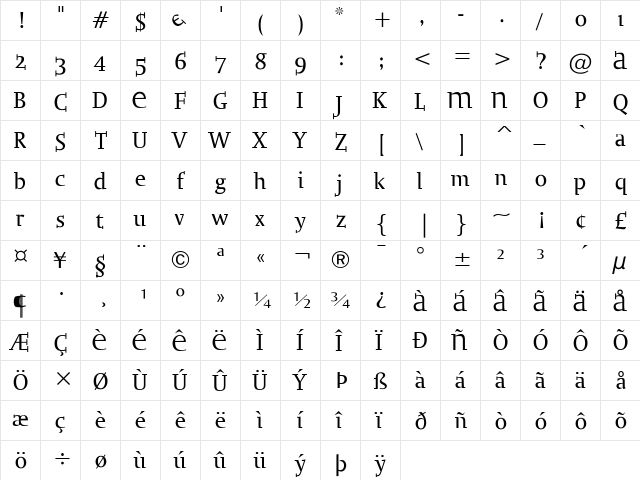
AIBradOgilvy Regular
Design Context for AIBradOgilvy Typeface
AIBradOgilvy takes a measured approach to typography — its balanced proportions and neutral character make it a reliable workhorse for both digital and print work.
Pro Tip: Use AIBradOgilvy in both headline and body roles to test its range before committing to a single application.